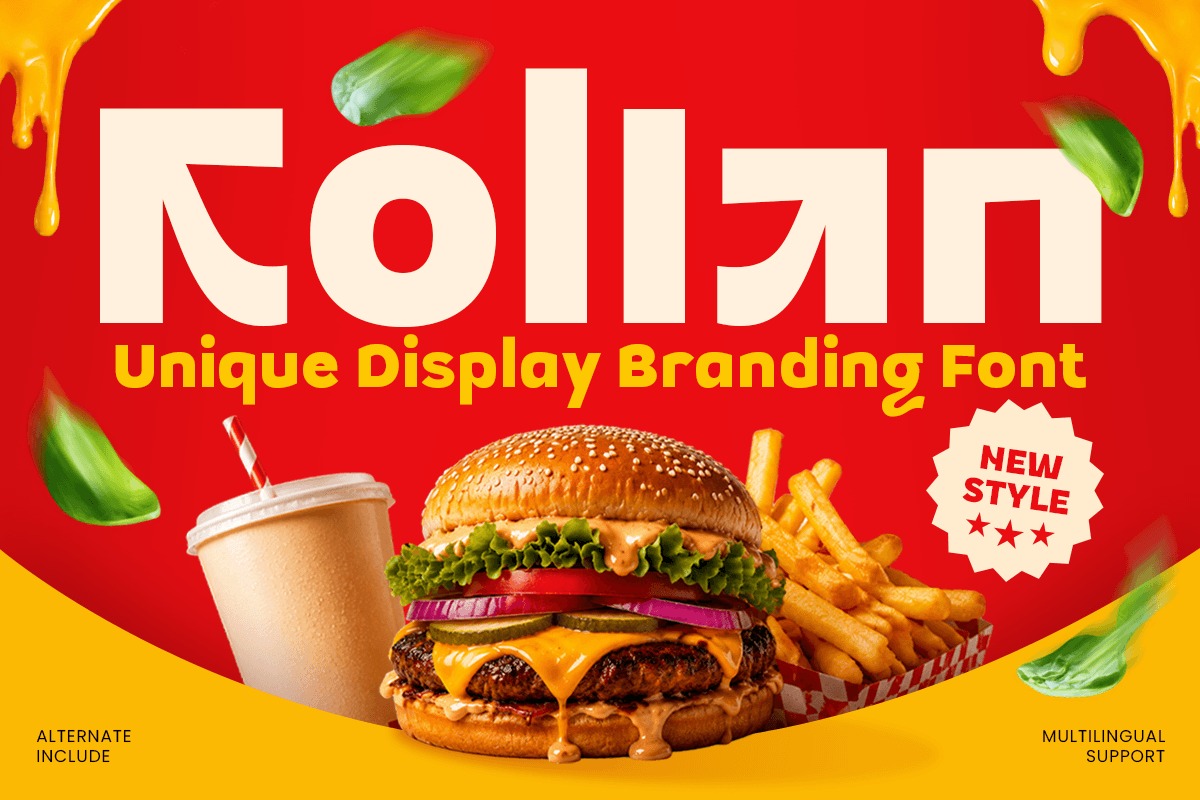
Kollan – Modern Diplay Font
Kollan – Modern Diplay Font is a unique branding font crafted for creative identities, modern typography, and memorable visual experiences. With distinctive letterforms, balanced proportions, and a strong display character, it creates a bold and recognizable presence for every design.
Designed for logos, brand identity, packaging, editorial layouts, marketing materials, social media graphics, and creative projects, Kollan combines unique personality with modern versatility.
Perfect for designers who want a branding font with strong character, stylish details, and a memorable visual impact.
Kollan Font Features
Uppercase & lowercase
Unique branding characters
Alternates & ligatures
Multilingual support
Professional kerning